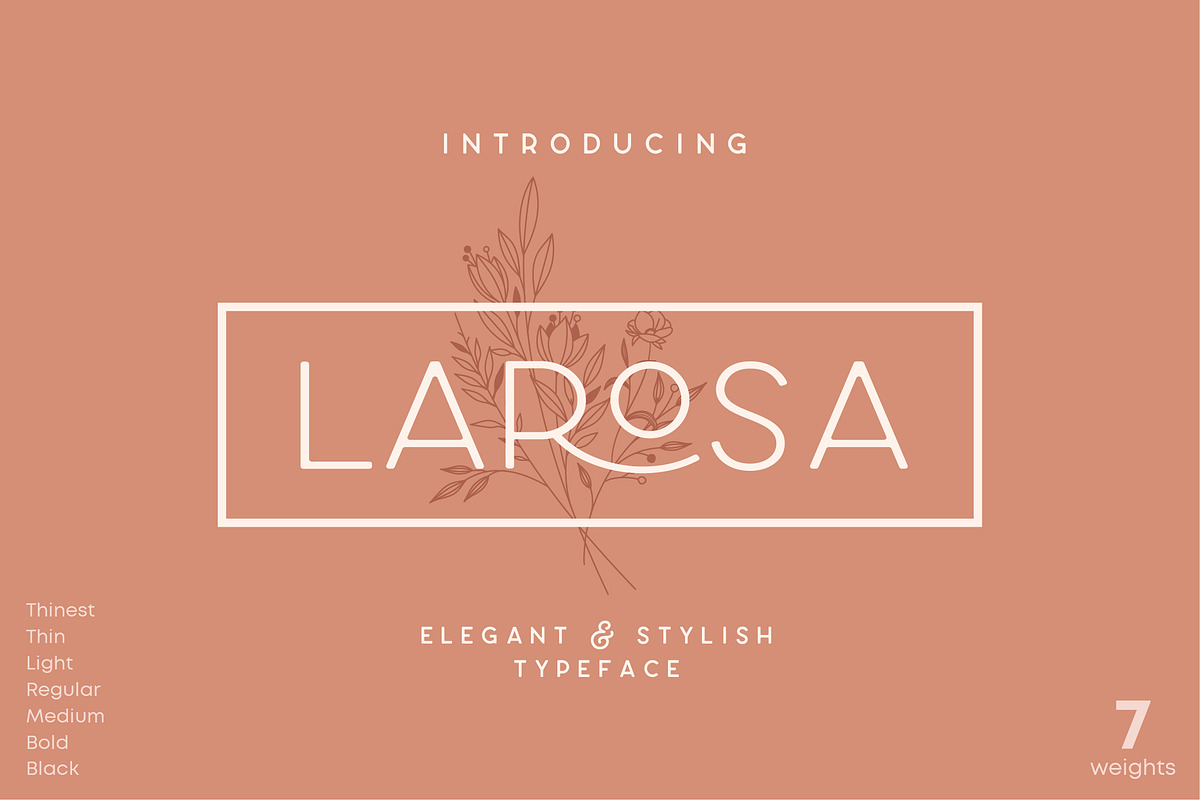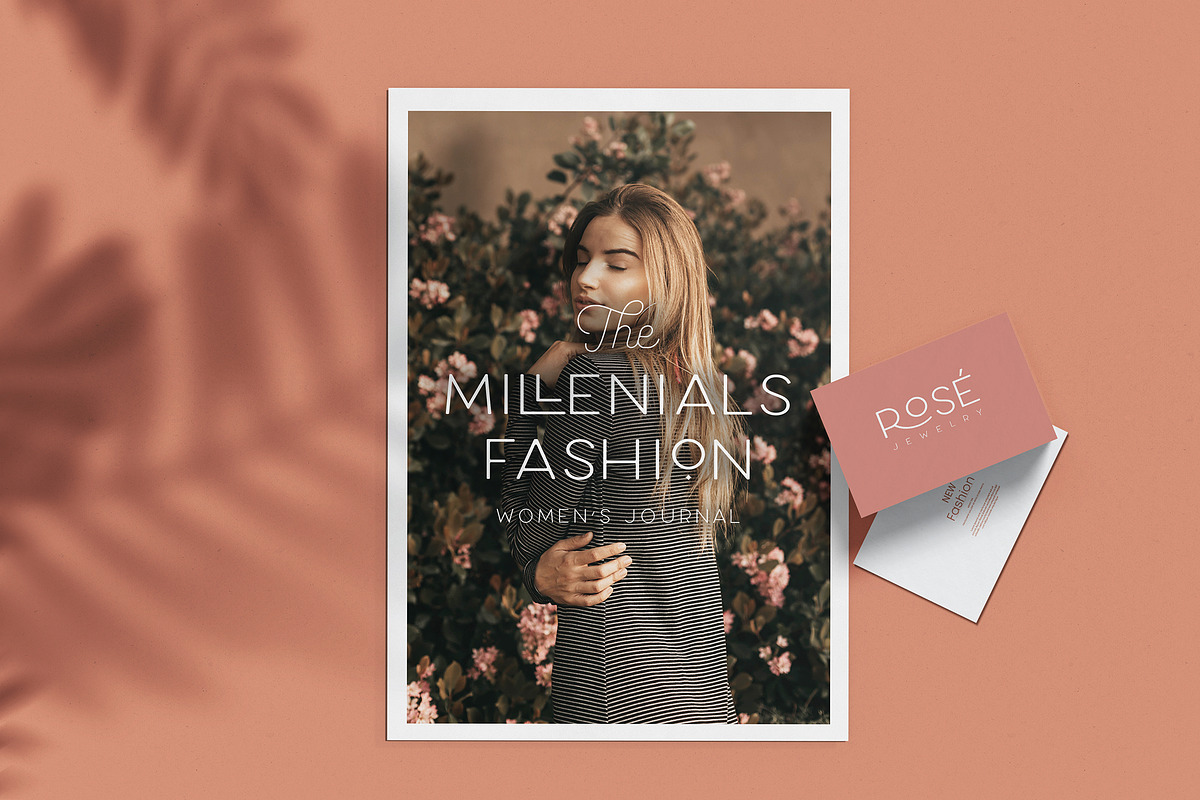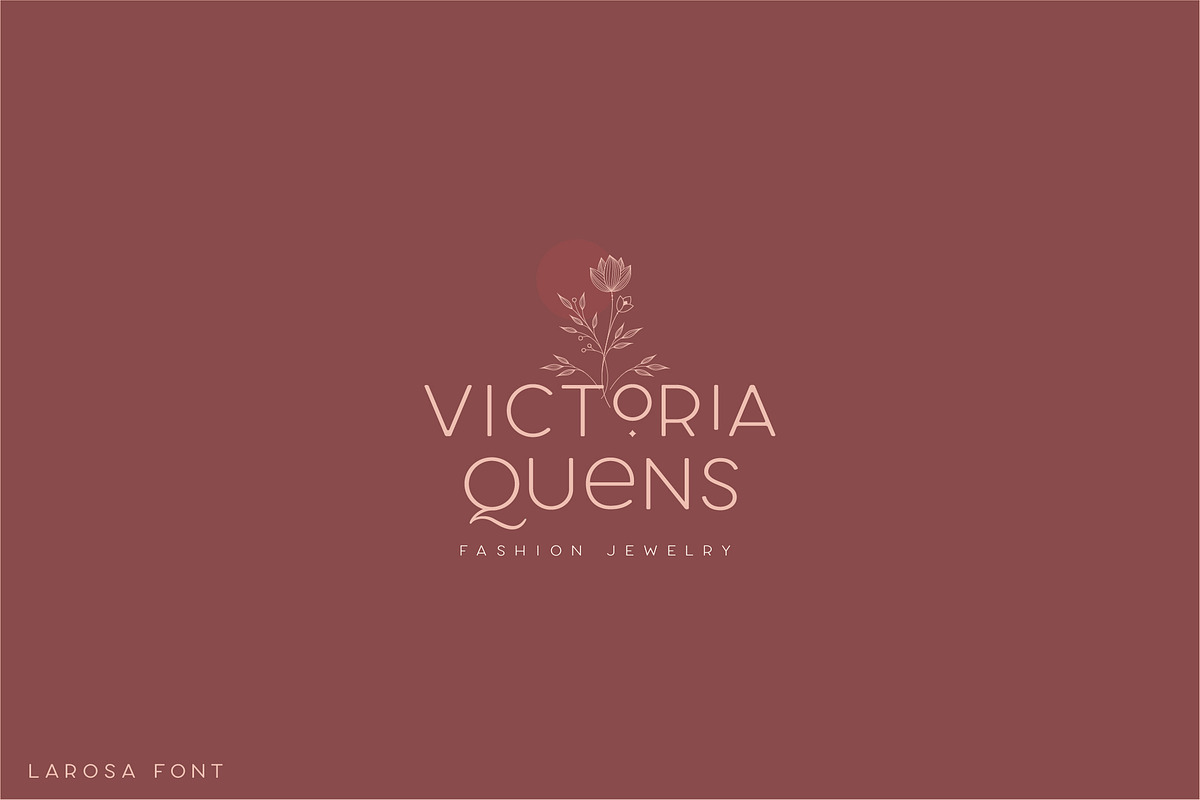
Larosa Font
Larosa is an elegant modern sans serif with ton of stylistic alternates to choose. Its clean and minimalistic works wonderfully on its own for logos, headlines, posters, packaging and many more!
And with Three different weights to choose, your option to create more unique and versatile design is a lot wider. Have fun and create more.. Your Imagination only your limit!!
• 7 Weights font
• All caps
• Stylistic Alternates & Ligatures
• Numerals & Punctuation
• Accented characters